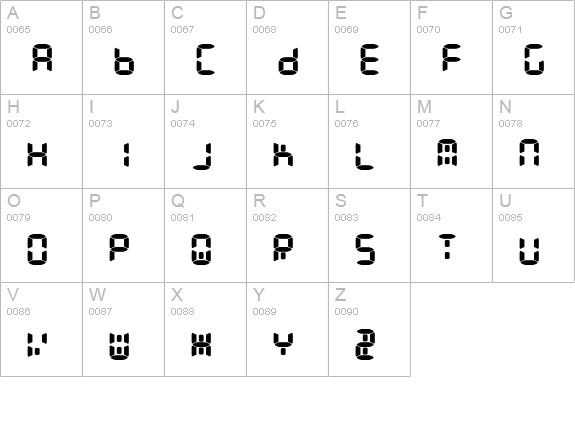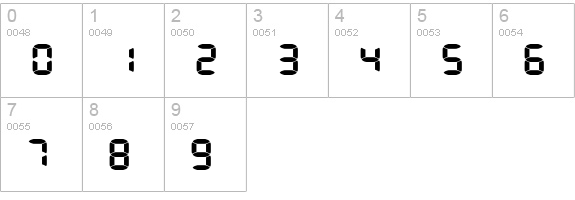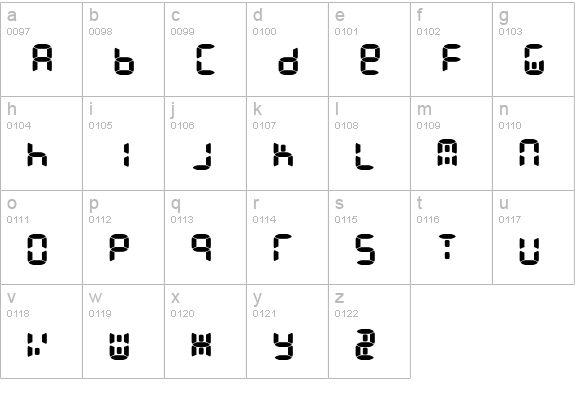
Readout-TwoFront font is a stunning display font that adds a touch of elegance and sophistication to any design project. With its unique and eye-catching letterforms, this font is sure to captivate and engage viewers. What sets Readout-TwoFront font apart is not only its striking aesthetics but also its versatility. Whether you're working on a poster, logo, website, or any other creative endeavor, this font will effortlessly elevate your design to new heights. Not only does Readout-TwoFront font offer a wide range of characters and glyphs, ensuring compatibility with various languages and typographic needs, but it also provides excellent readability. Each letter is meticulously crafted to ensure clarity and legibility, making it ideal for both print and digital applications. One of the best things about Readout-TwoFront font is that it is available for free download at FontsMarket.com. This means that you can easily access and use this extraordinary font without any cost. Whether you're a professional designer or a design enthusiast, this free font is a fantastic addition to your creative toolkit. Download Readout-TwoFront font today and unlock a world of possibilities. Let your imagination run wild as you explore the endless design opportunities this font has to offer. Whether you're creating branding materials, advertisements, or simply experimenting with typography, this font will undoubtedly make your designs stand out from the crowd. Do not miss the chance to enhance your projects with the beauty and versatility of Readout-TwoFront font. Visit FontsMarket.com now and download this extraordinary font for free.